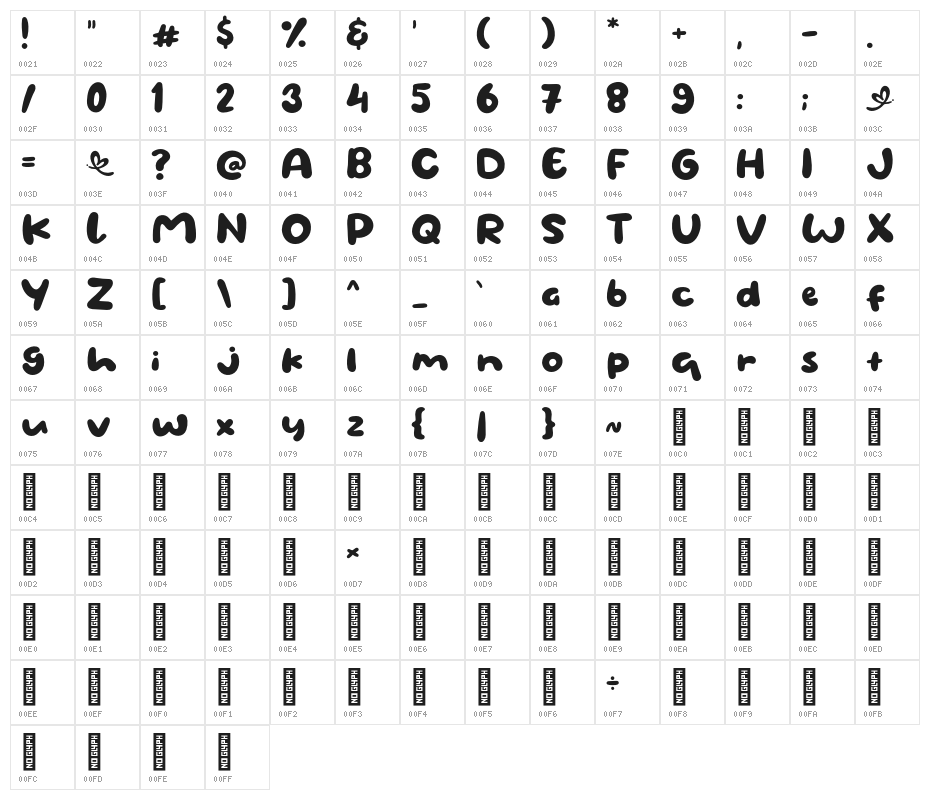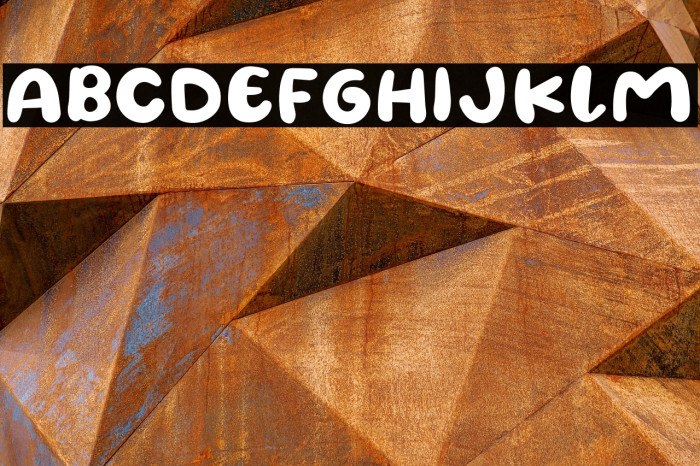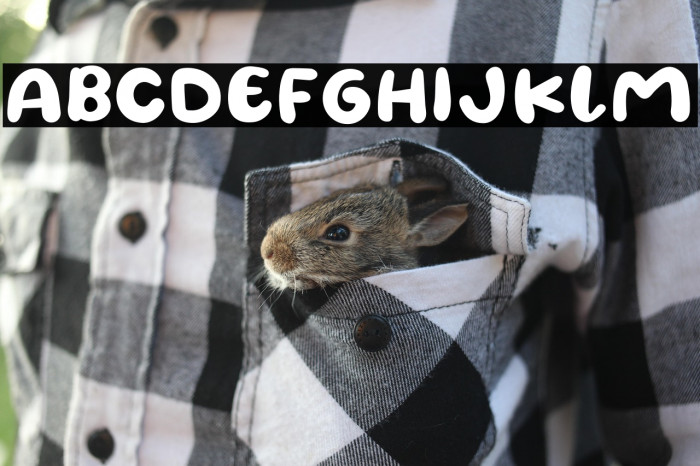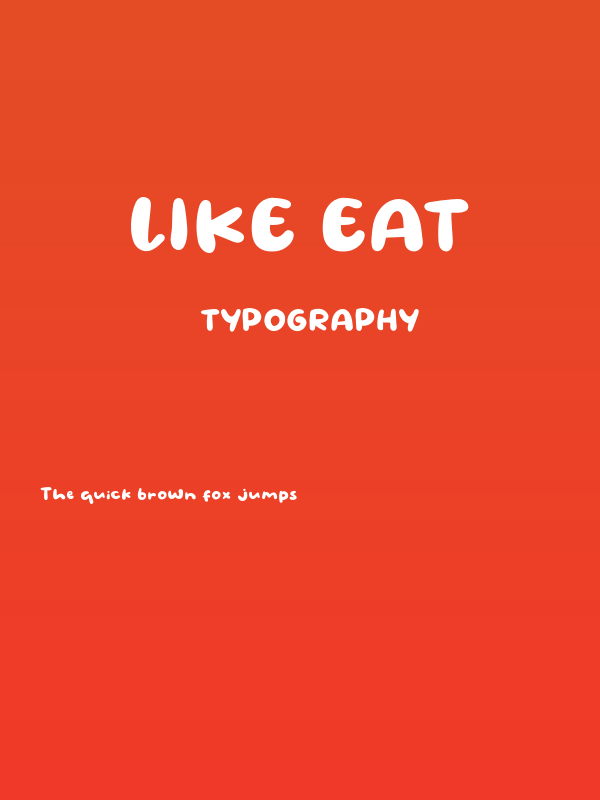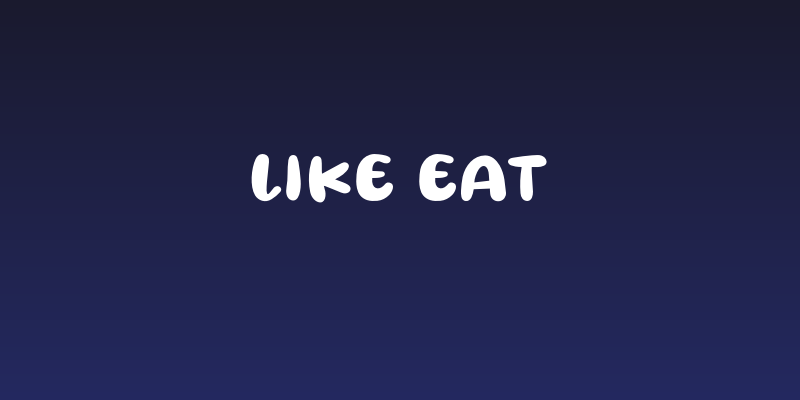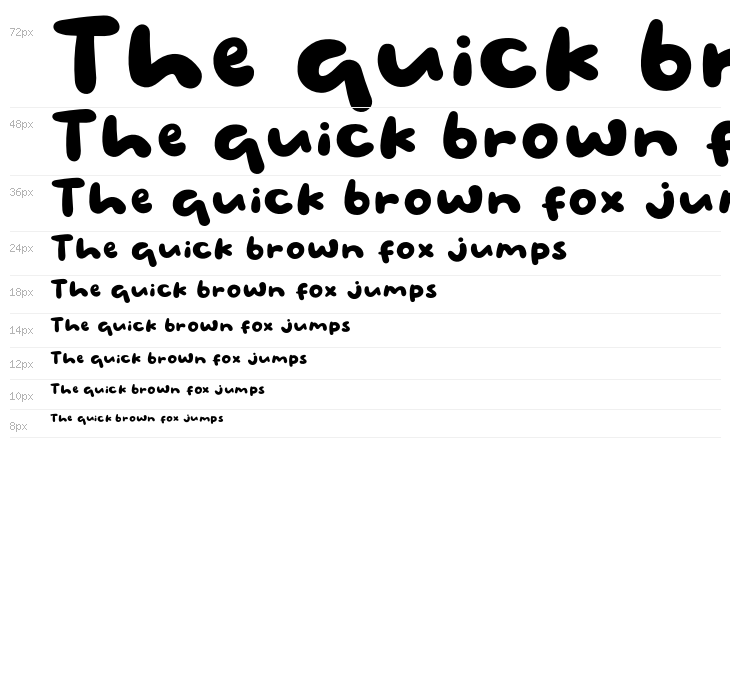
Like Eat Font
Like Eat Description
This playful and bold font features rounded, bubbly characters that exude a sense of fun and approachability. The letters are uniformly thick, with a consistent stroke width that gives the font a cohesive and balanced appearance. The uppercase and lowercase letters maintain a similar style, with slightly exaggerated curves and a whimsical flair. Numbers and special characters follow the same design principles, ensuring a harmonious look across all elements. The font's overall style is casual and friendly, making it ideal for projects that aim to convey warmth and creativity.
| Overall Style | Playful |
| Proposed Projects | Ideal for children's books, playful branding, party invitations, and creative posters. |